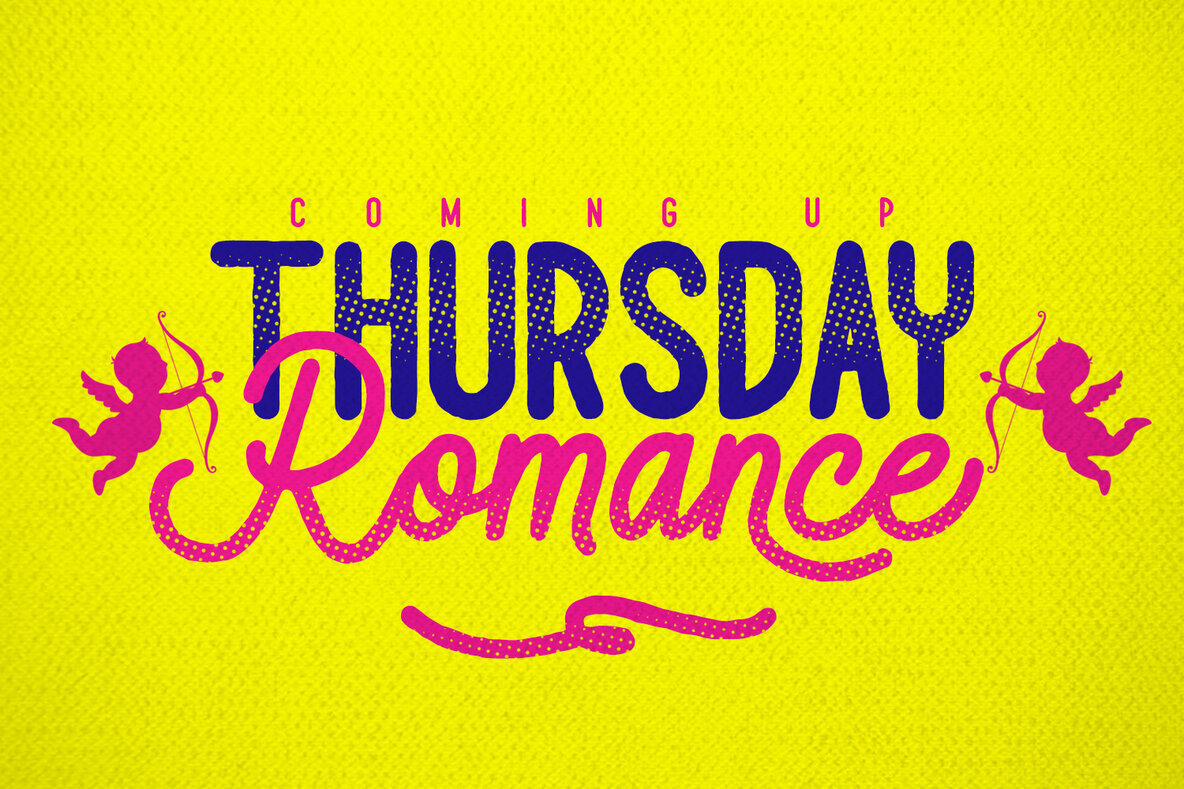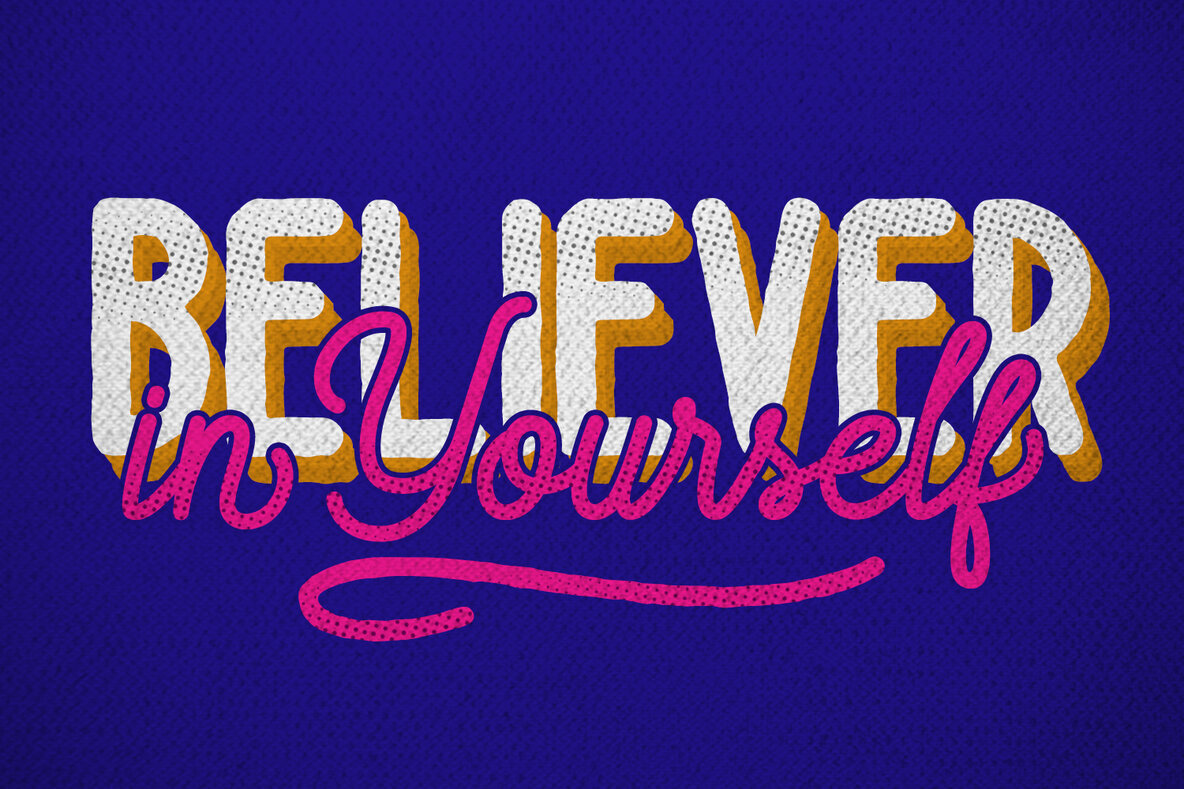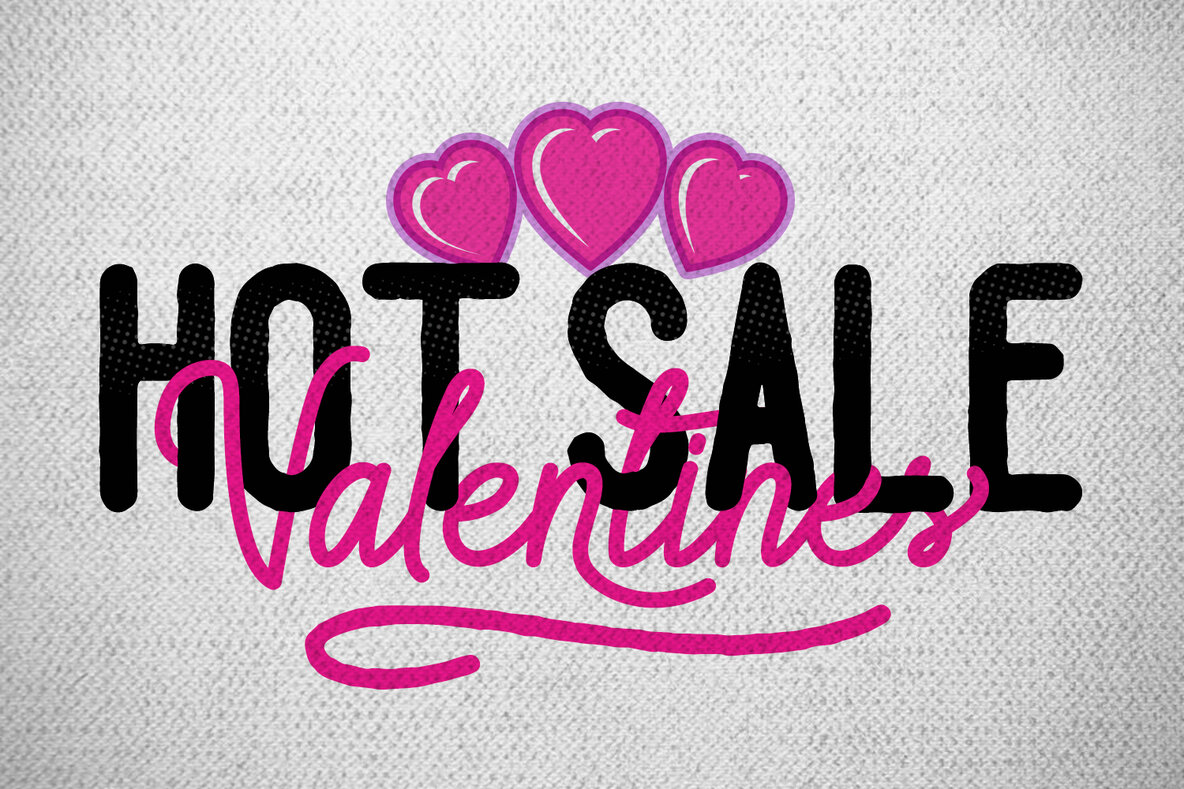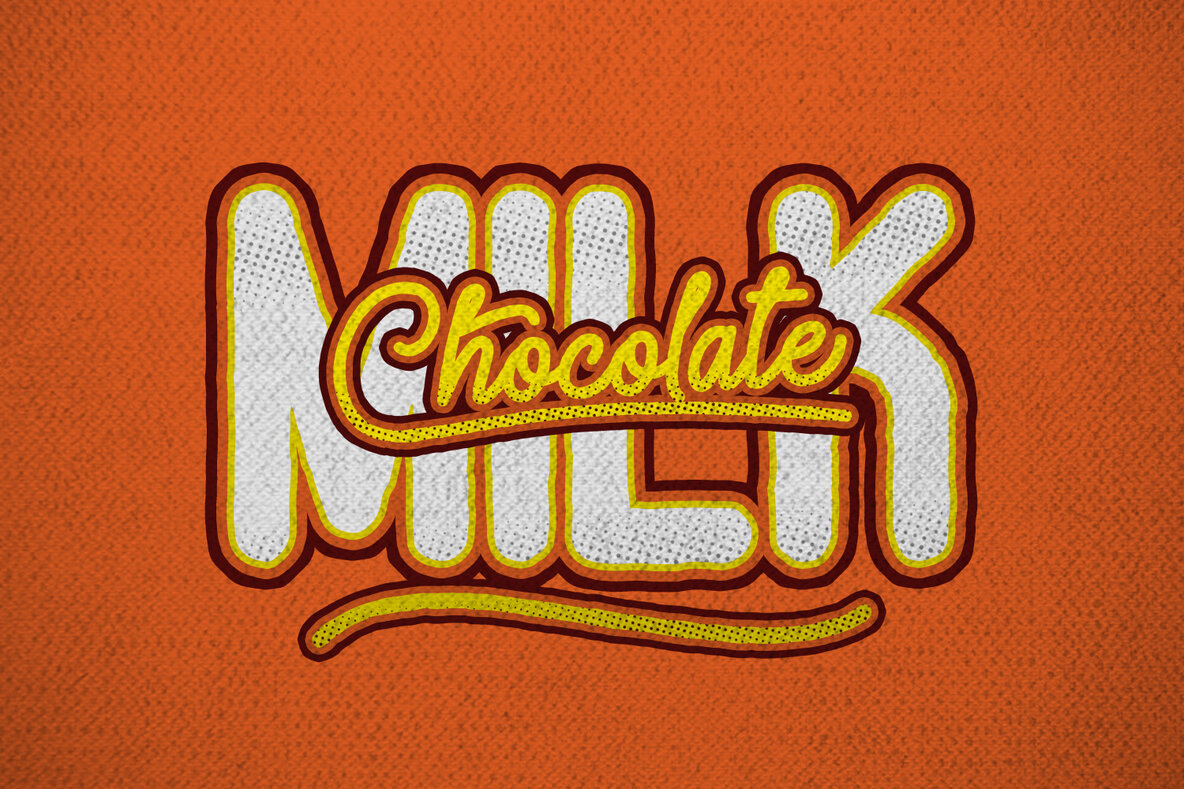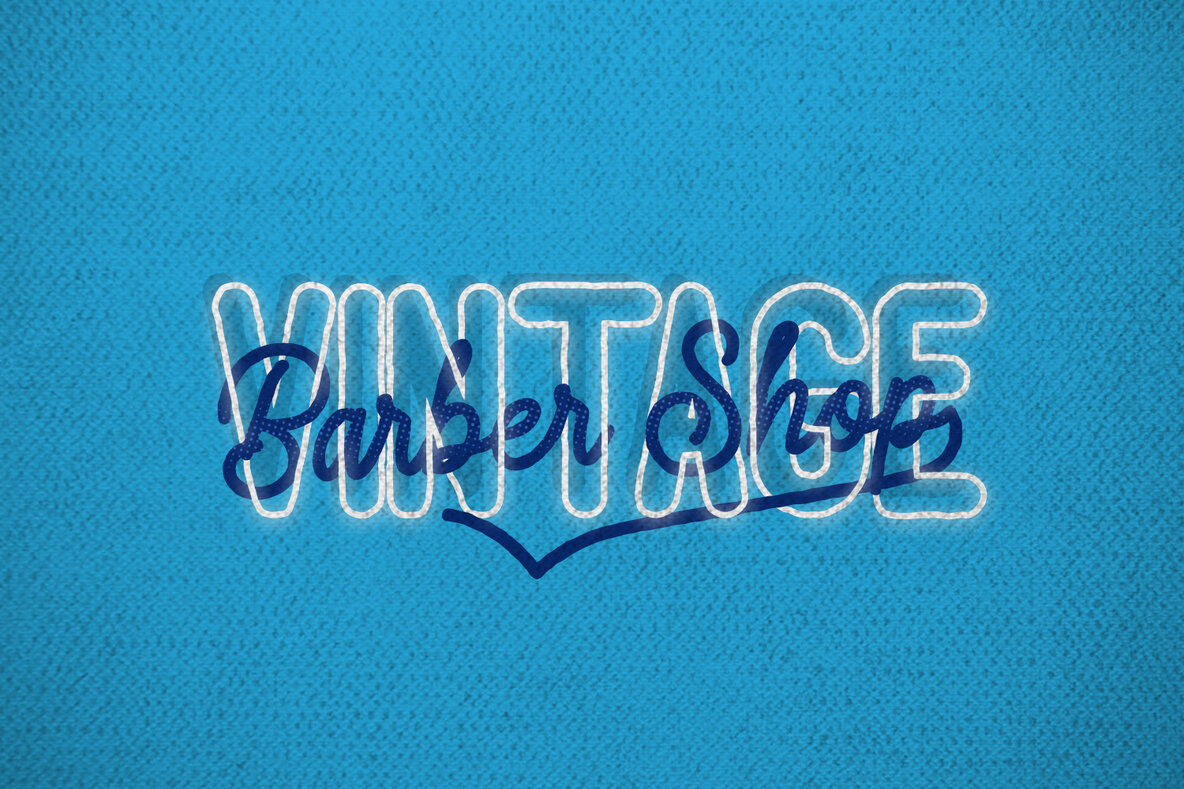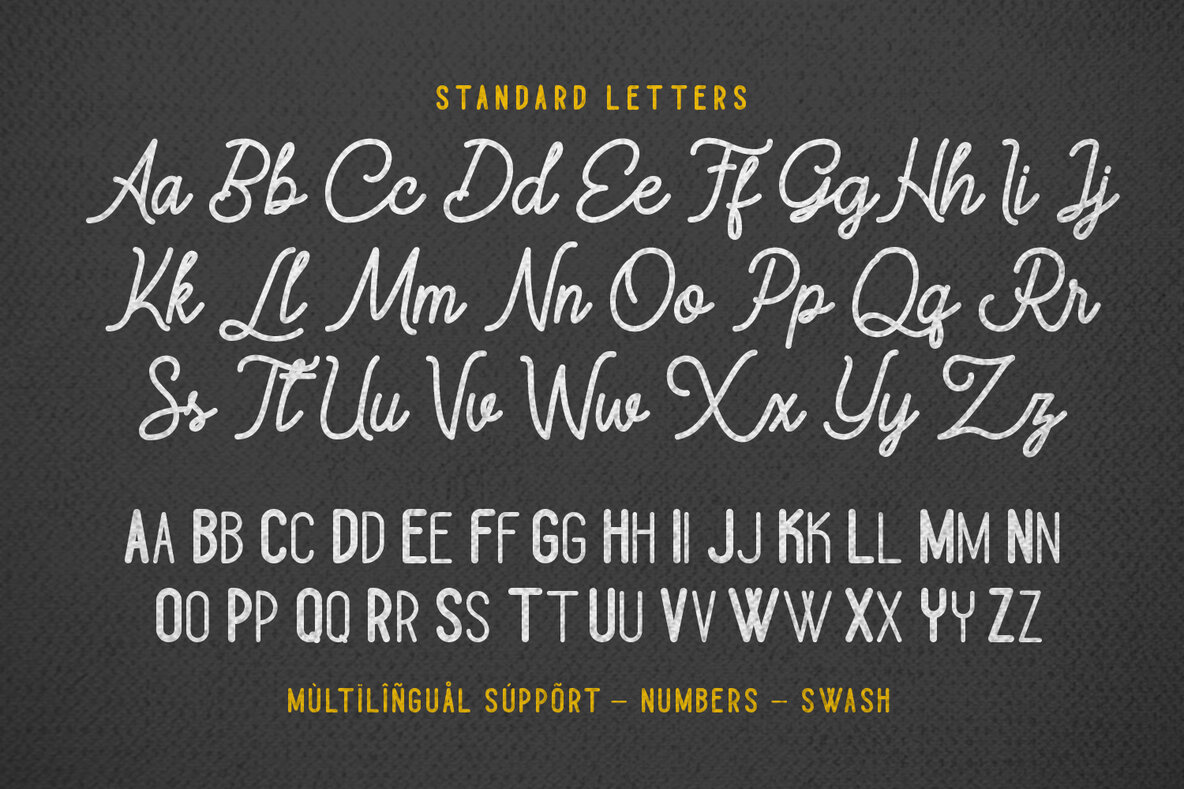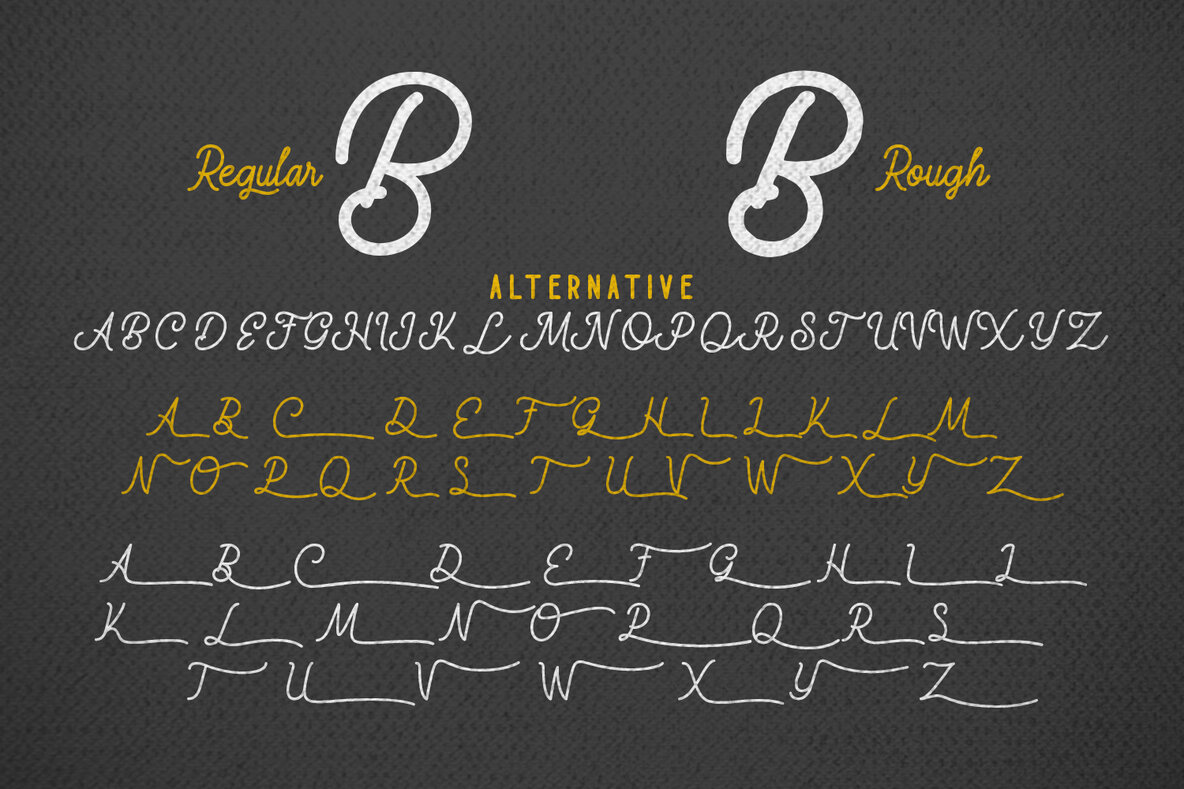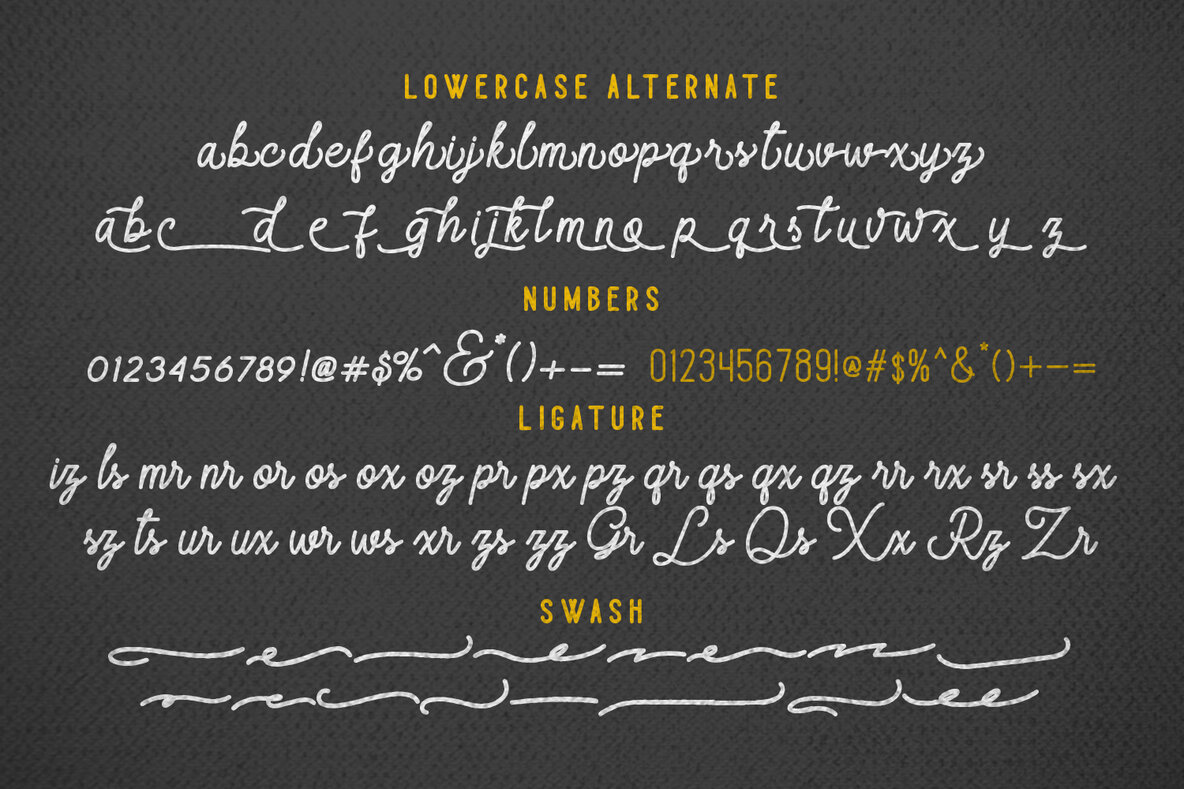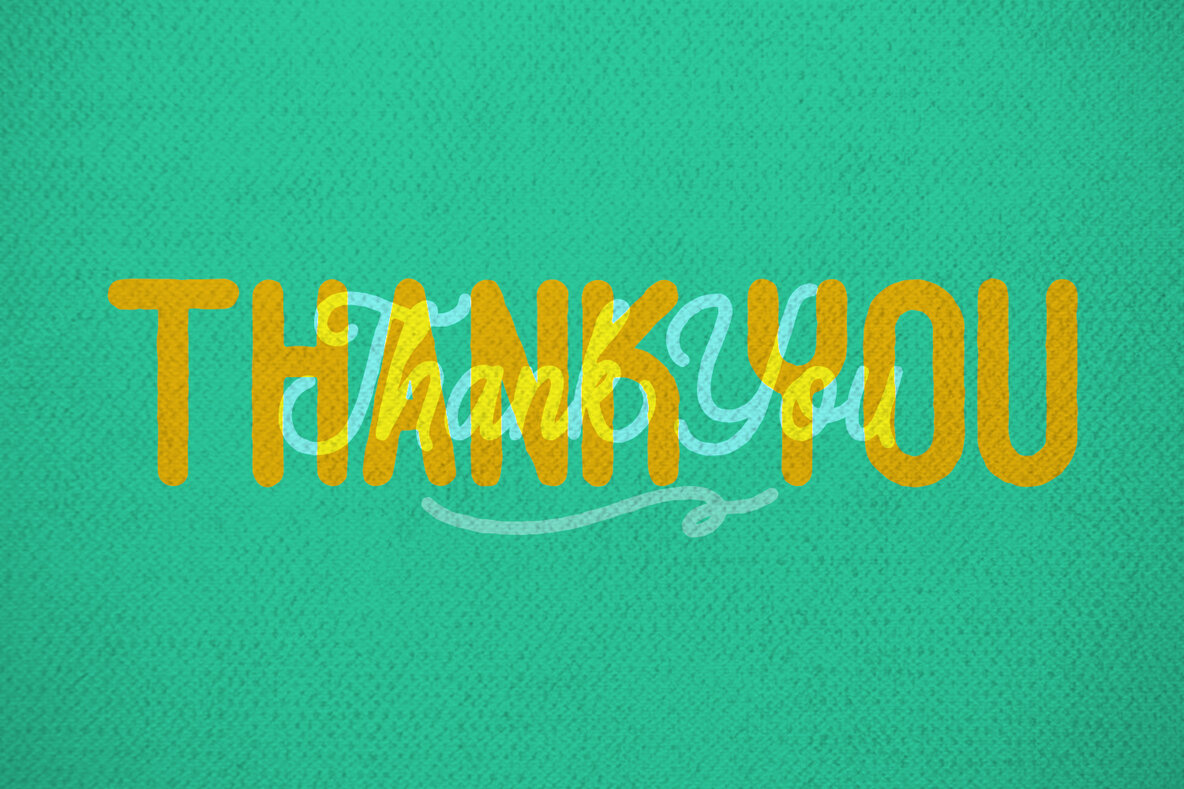
Majestic Romance Font
Immerse yourself in the elegance of Majestic Romance, a sophisticated duo of mono line script and sans serif fonts. This pairing offers two distinct variations—regular and rough—ensuring flexibility across diverse design projects.Majestic Romance: Versatile Typography Duo